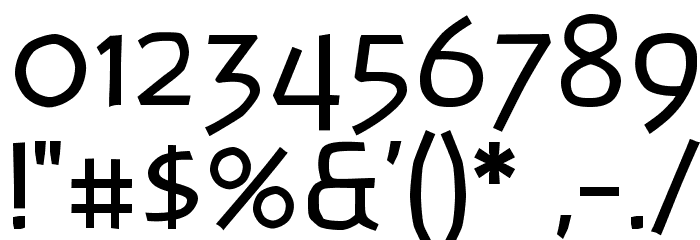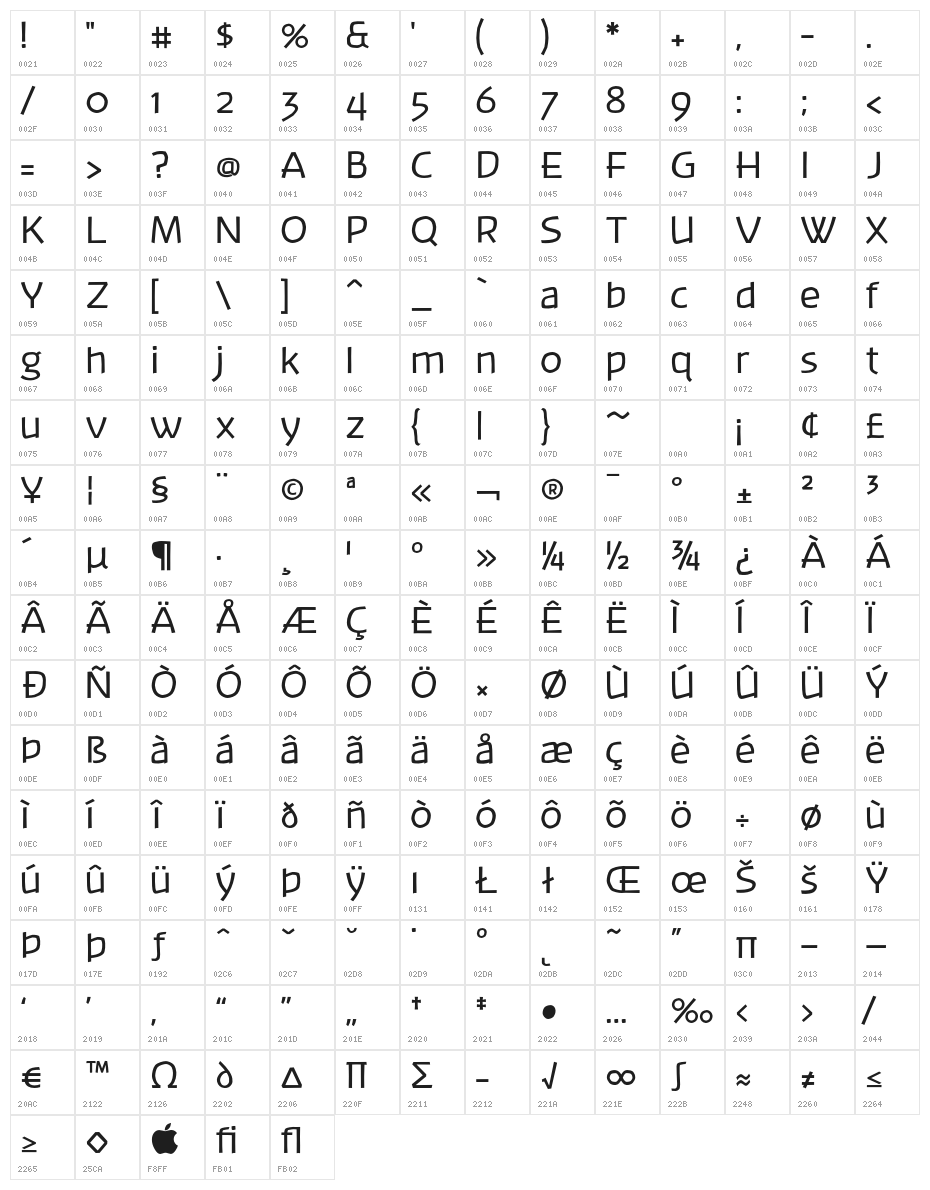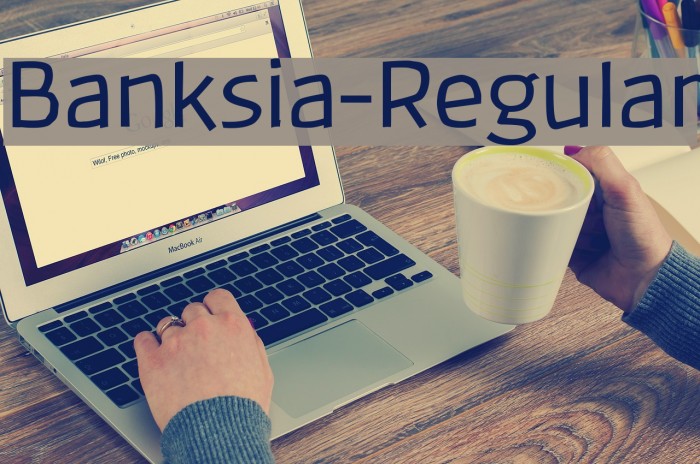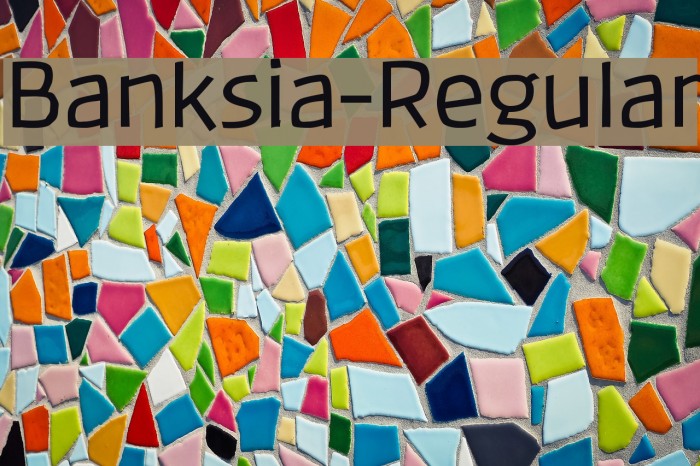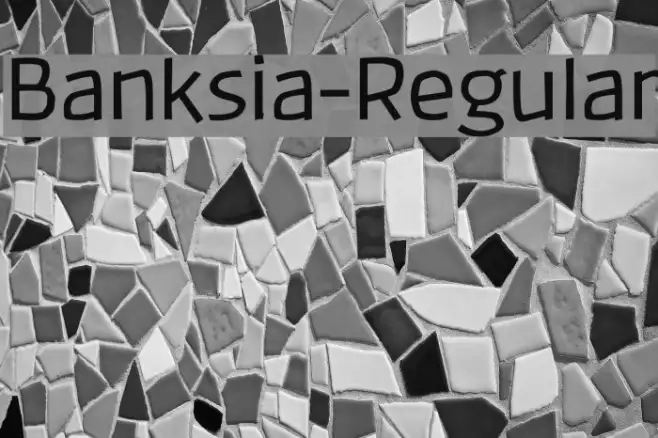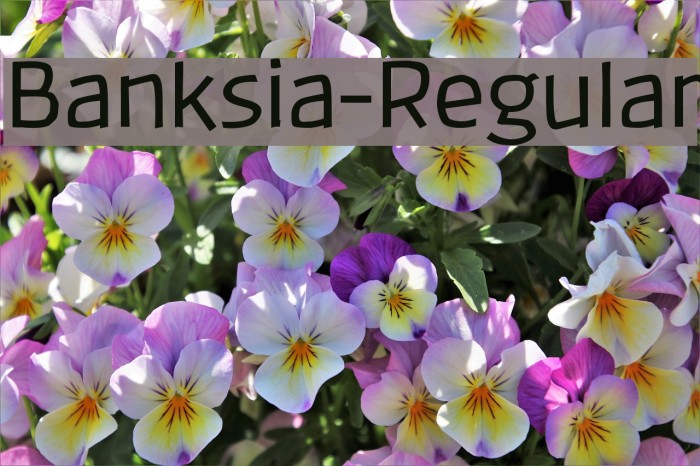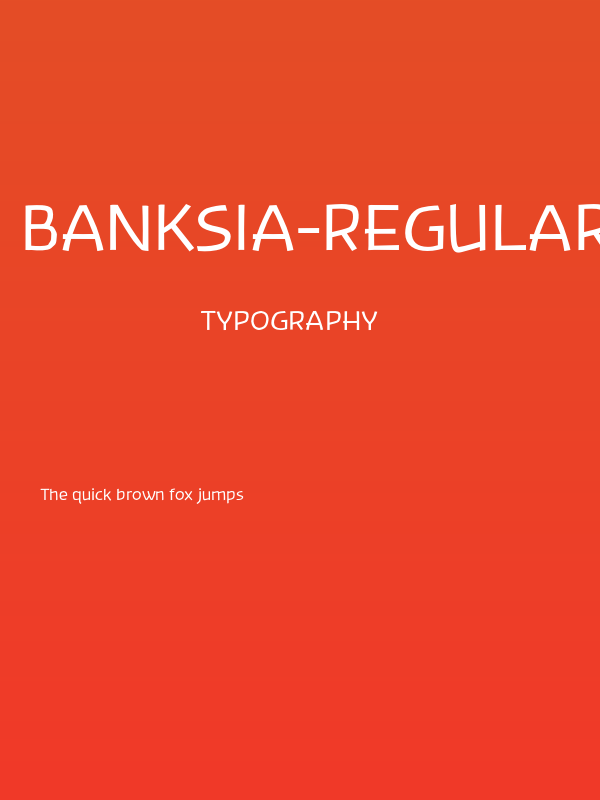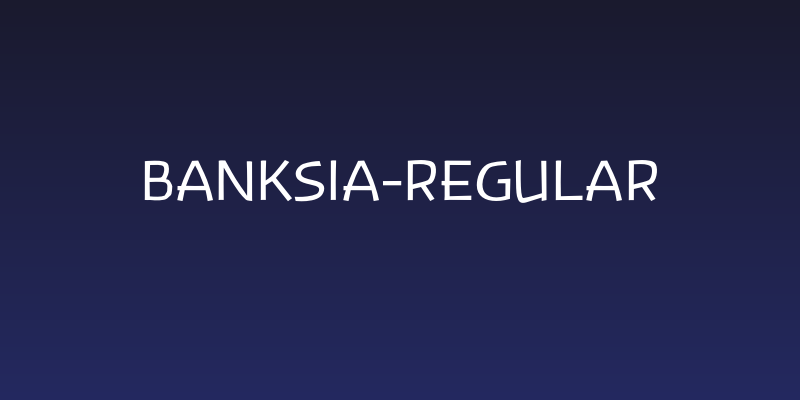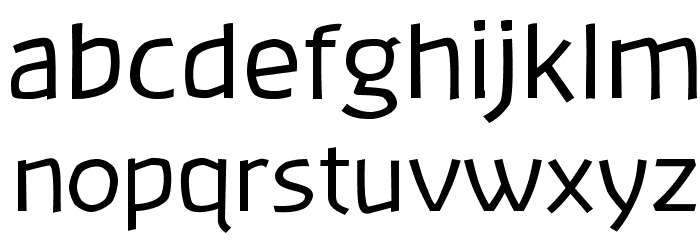
Banksia-Regular Font
Banksia-Regular Description
This font features a clean and modern sans-serif design with a slightly rounded appearance, giving it a friendly and approachable feel. The characters are well-proportioned, with a consistent stroke width that maintains readability across various sizes. The uppercase letters are bold and assertive, while the lowercase letters have a subtle playfulness due to their rounded edges. The numerals are clear and distinct, making them suitable for both digital and print applications. Special characters are well-integrated, maintaining the overall aesthetic of the font.
| Proposed Projects | Ideal for branding, web design, user interfaces, and print materials where a modern and approachable look is desired. |